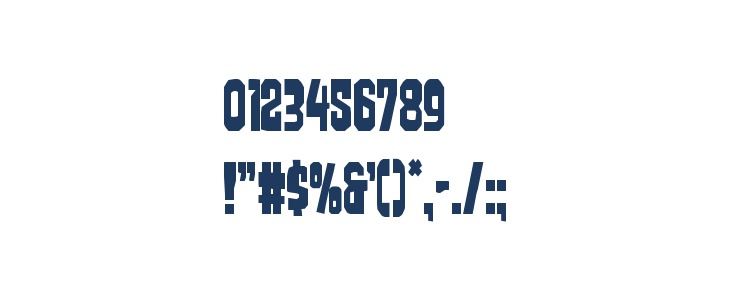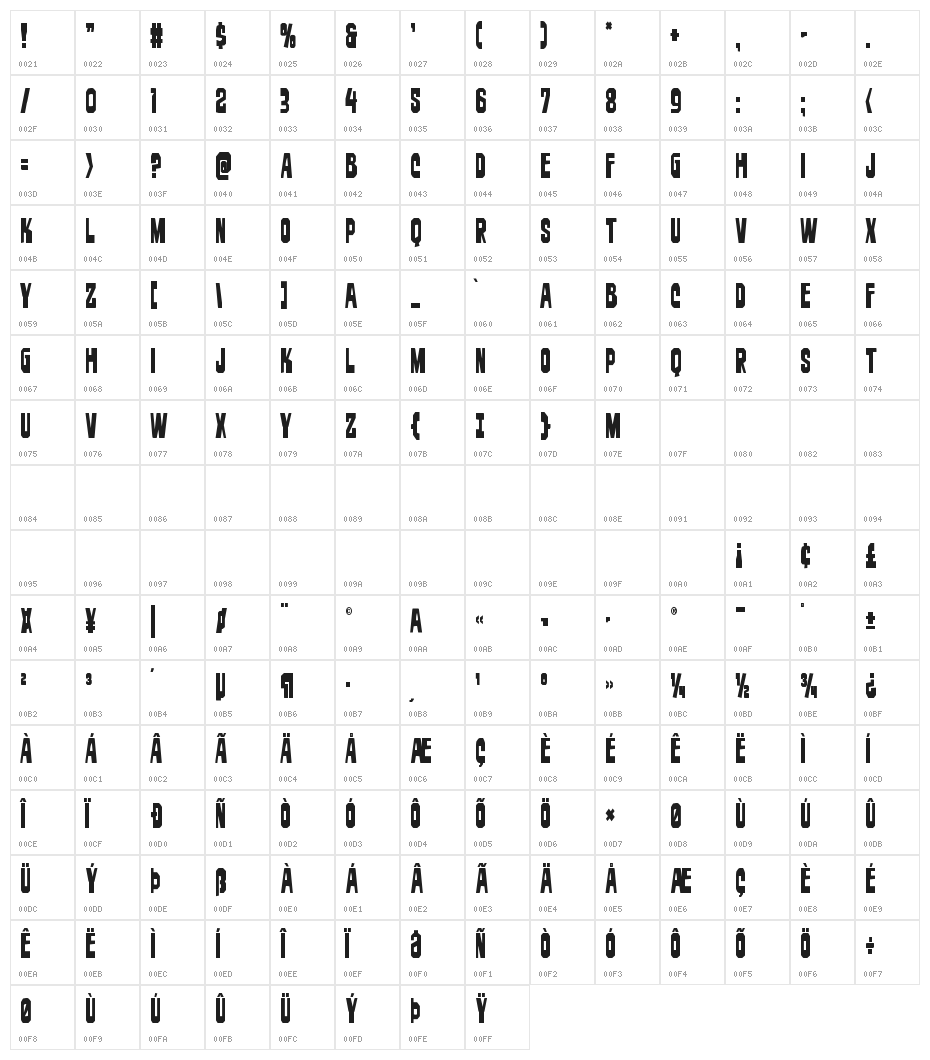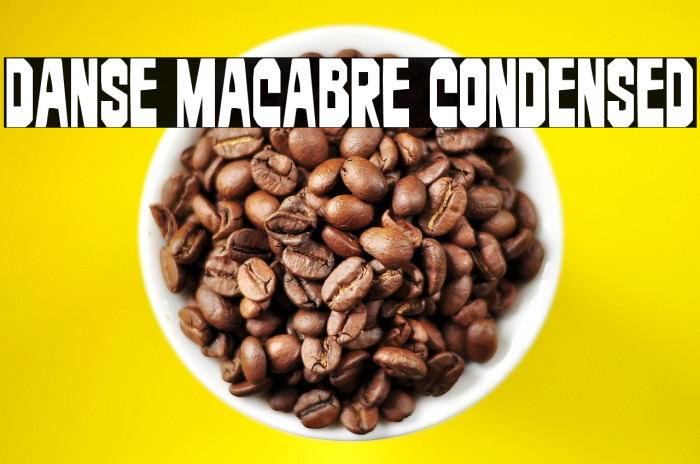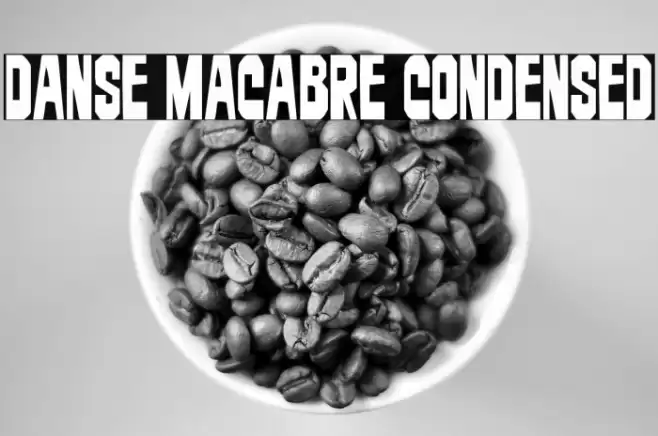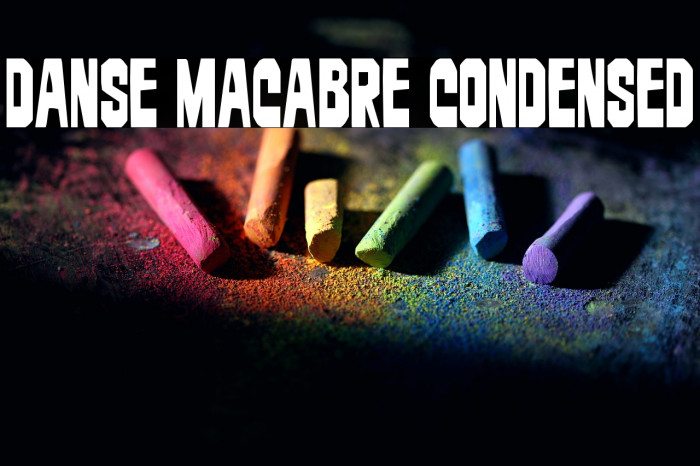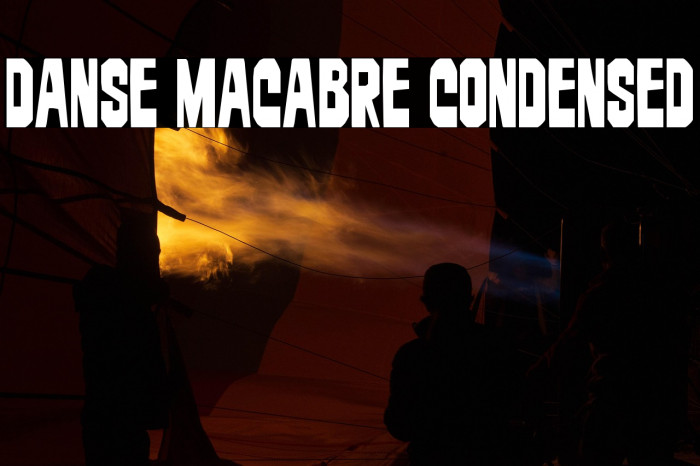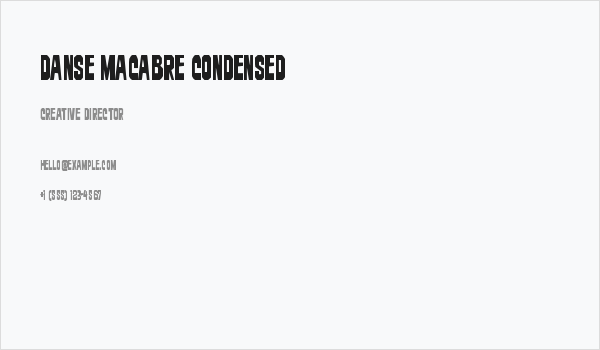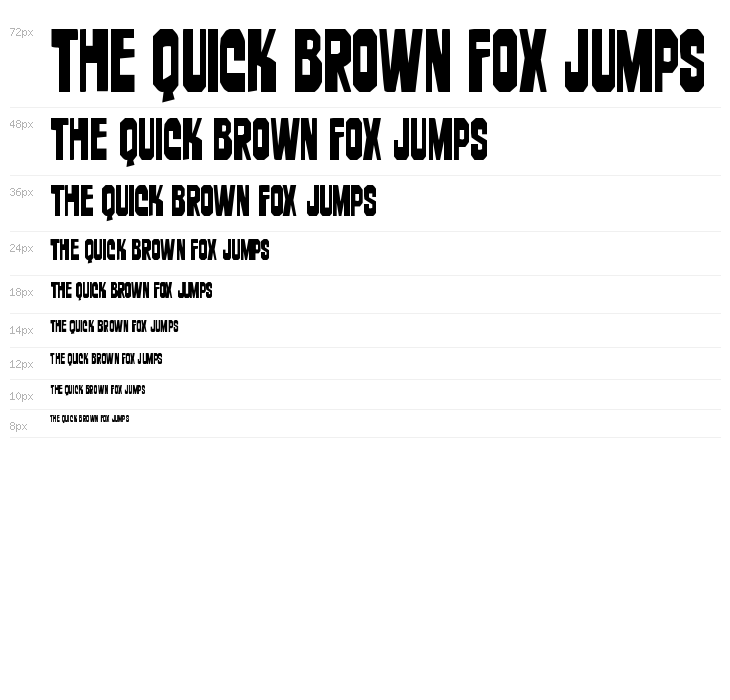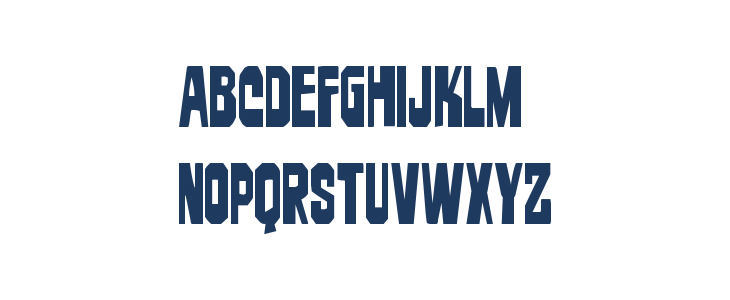
Danse Macabre Condensed Font
Danse Macabre Condensed Description
This font features a bold and condensed style, characterized by its thick, uniform strokes and sharp edges. The uppercase letters are prominent and commanding, making a strong visual impact. The numerals and special characters maintain the same boldness, ensuring consistency across all glyphs. The condensed nature of the font allows for efficient use of space while maintaining readability. Its geometric shapes and clean lines give it a modern and assertive appearance, suitable for attention-grabbing designs.
Proposed ProjectsIdeal for posters, headlines, branding, and any design requiring a strong visual impact.